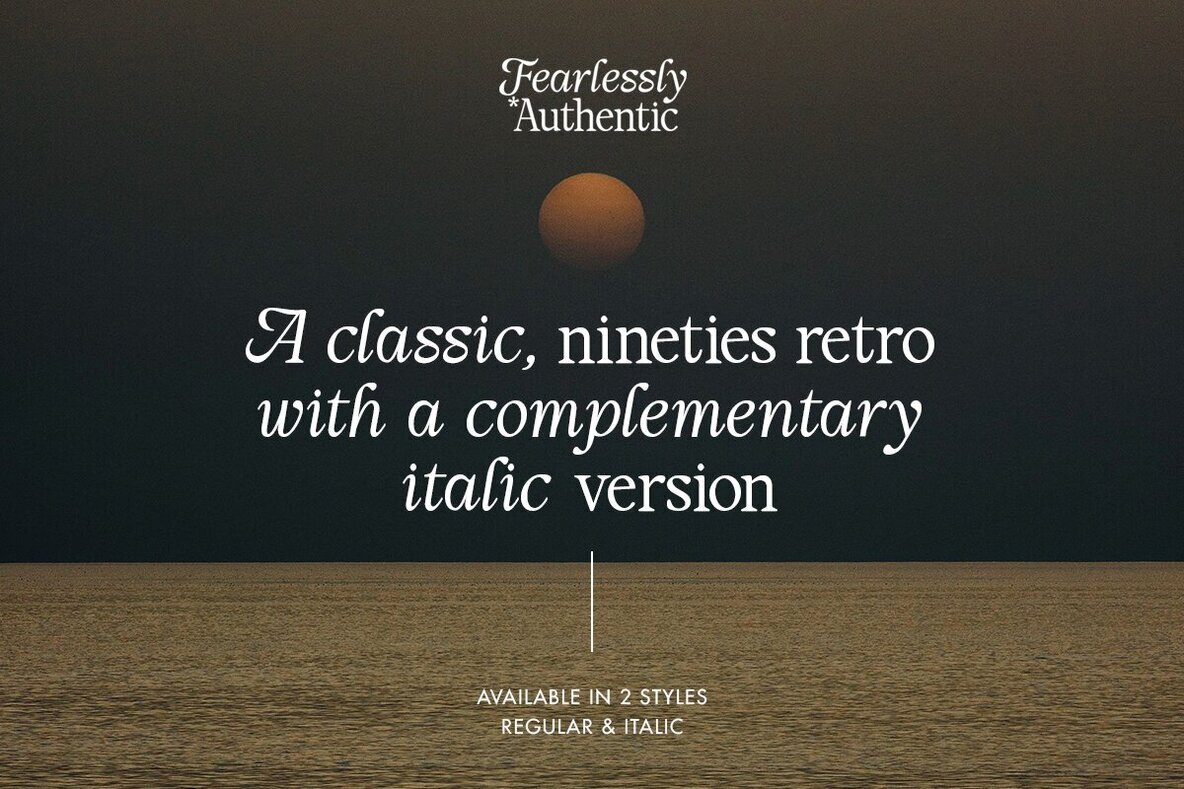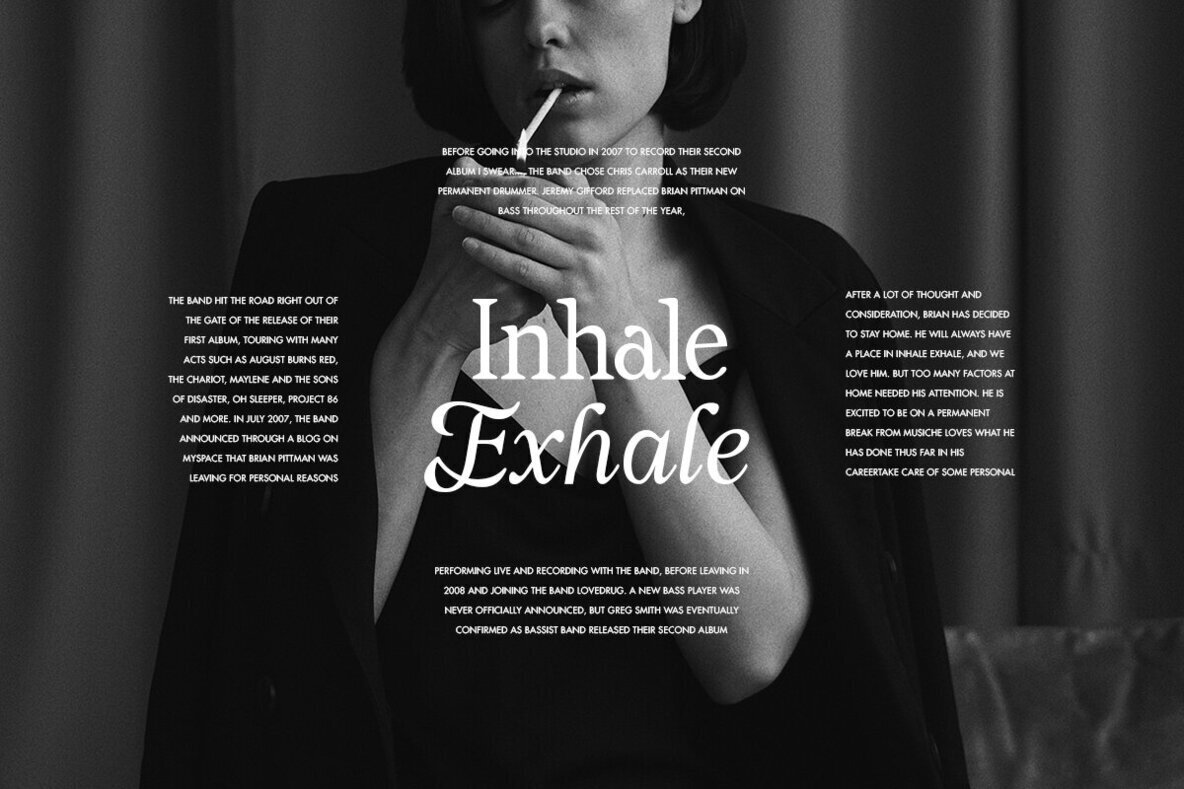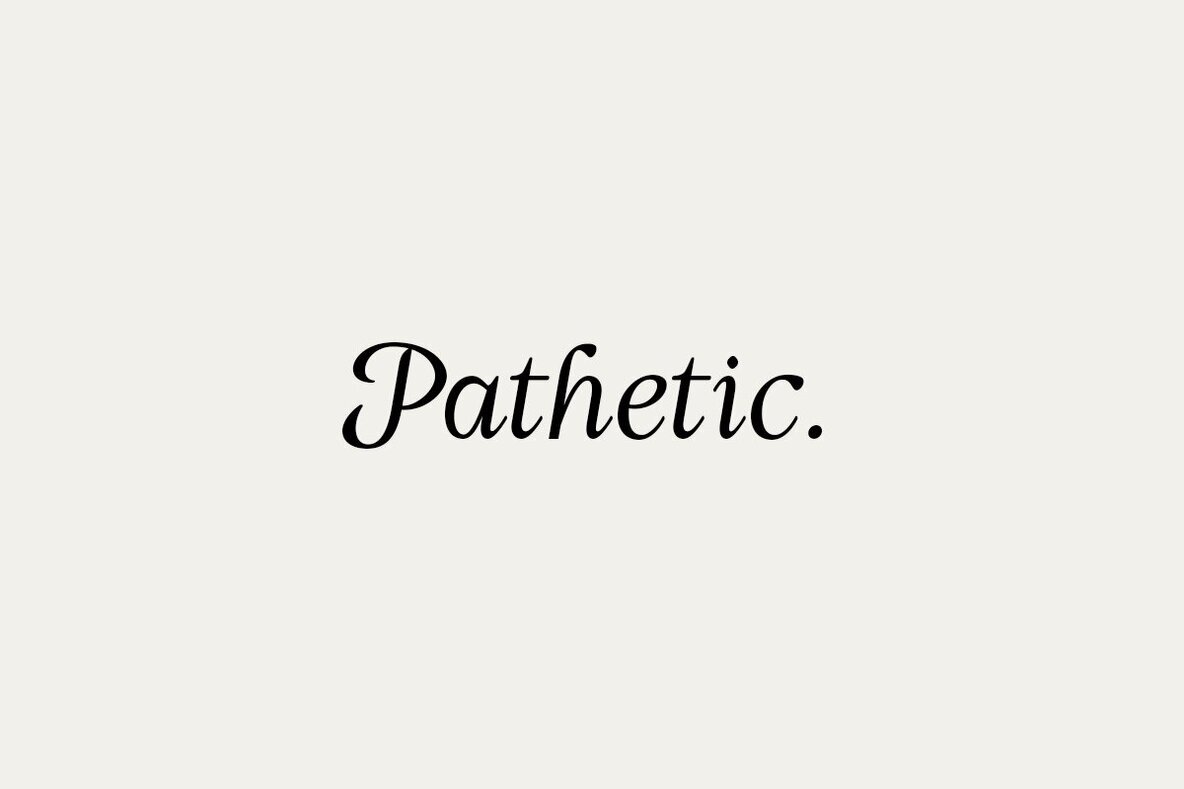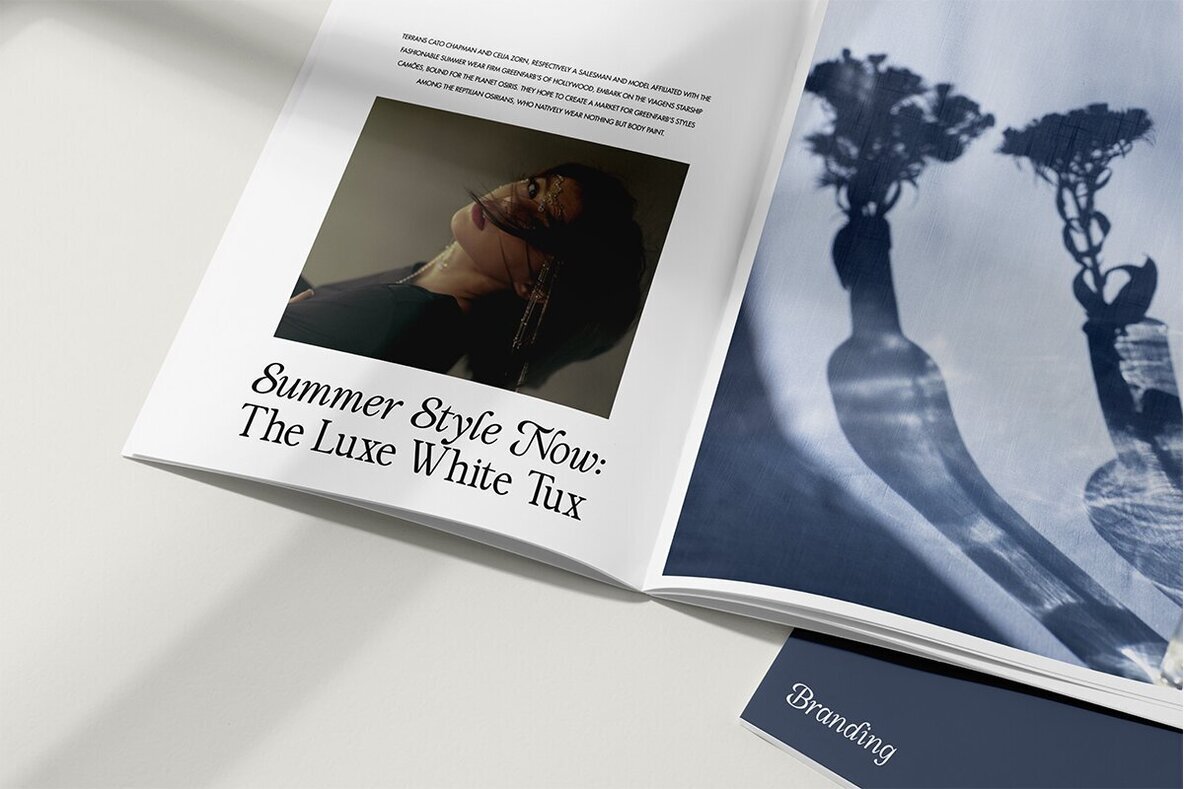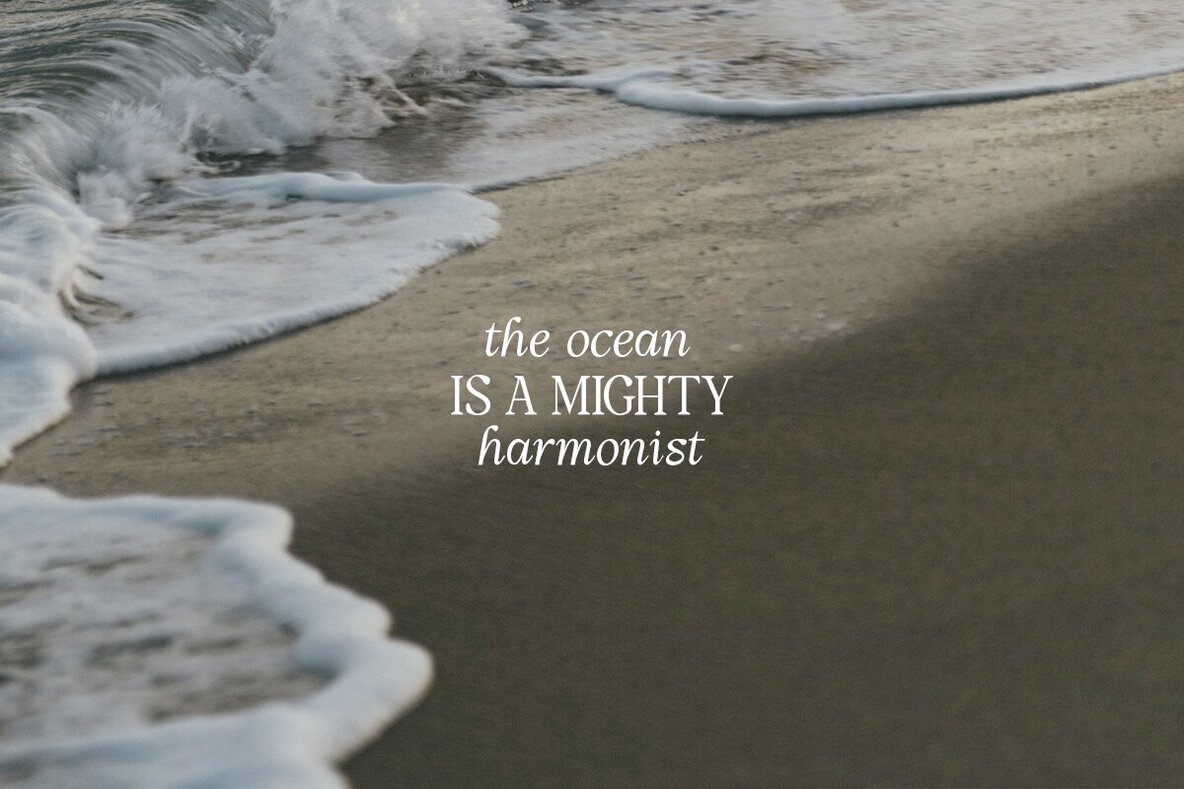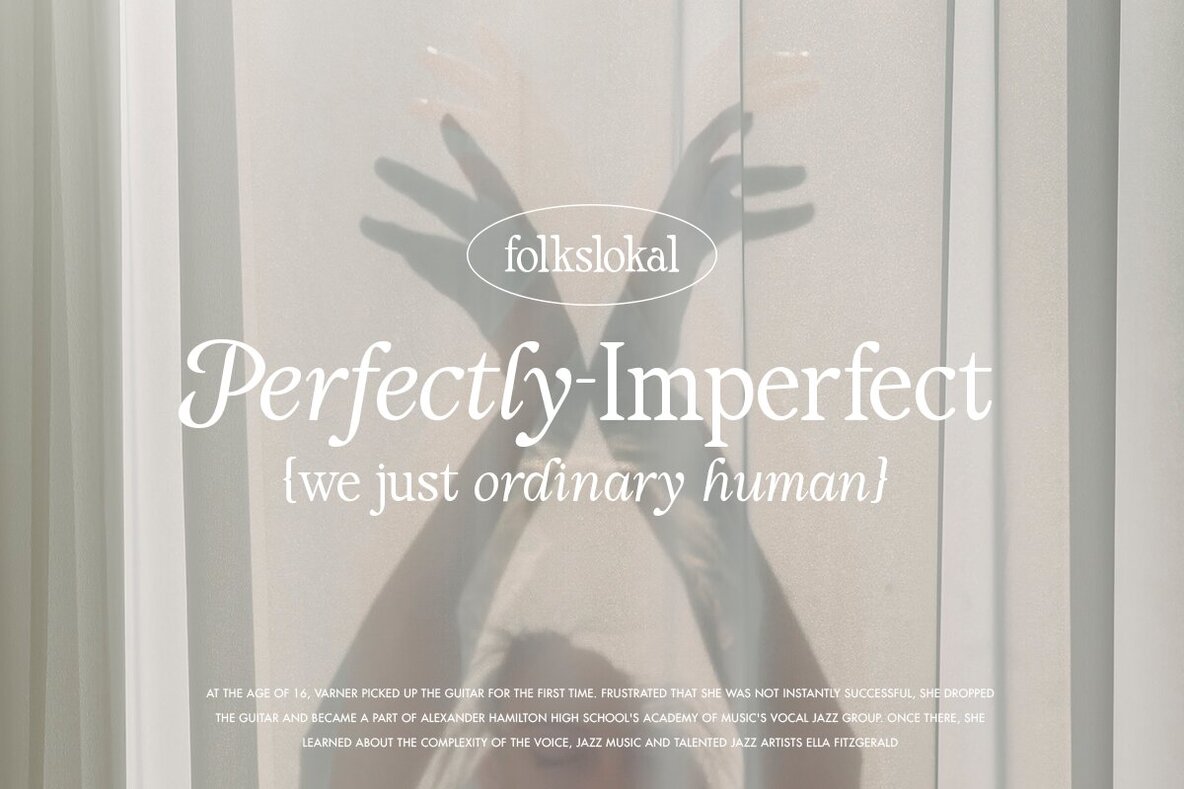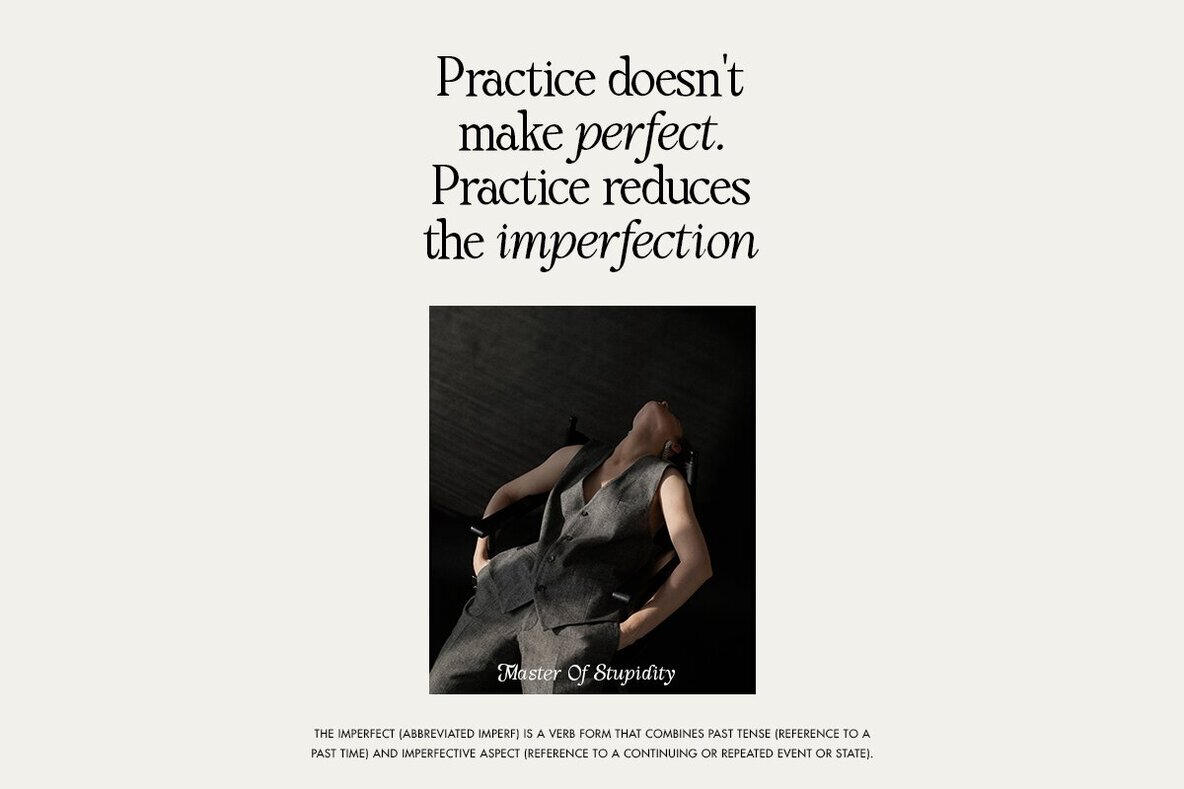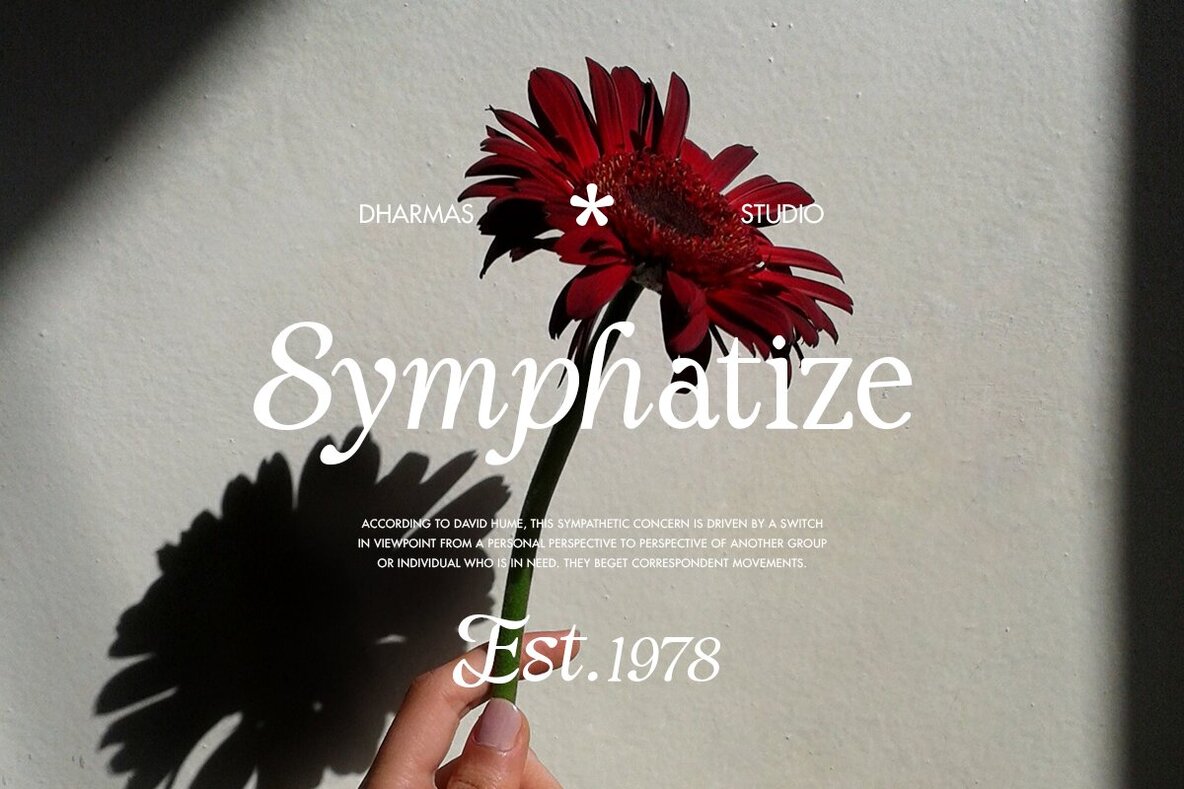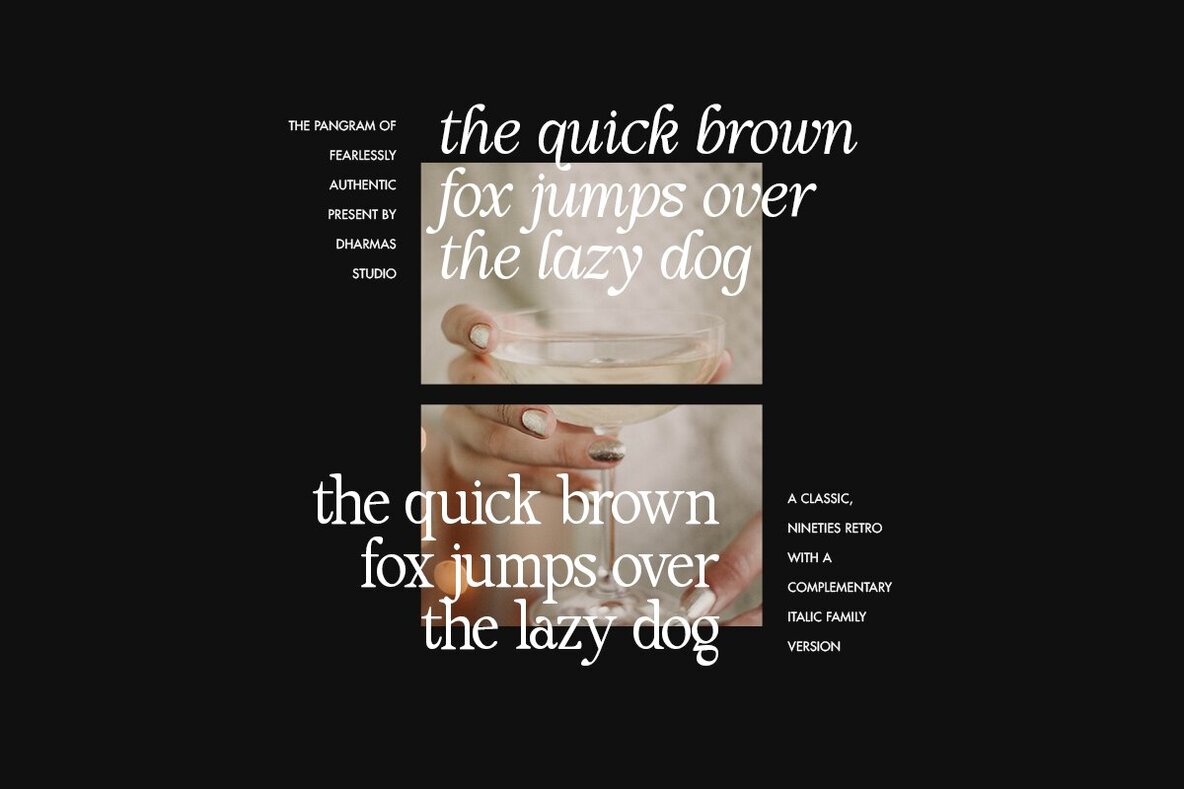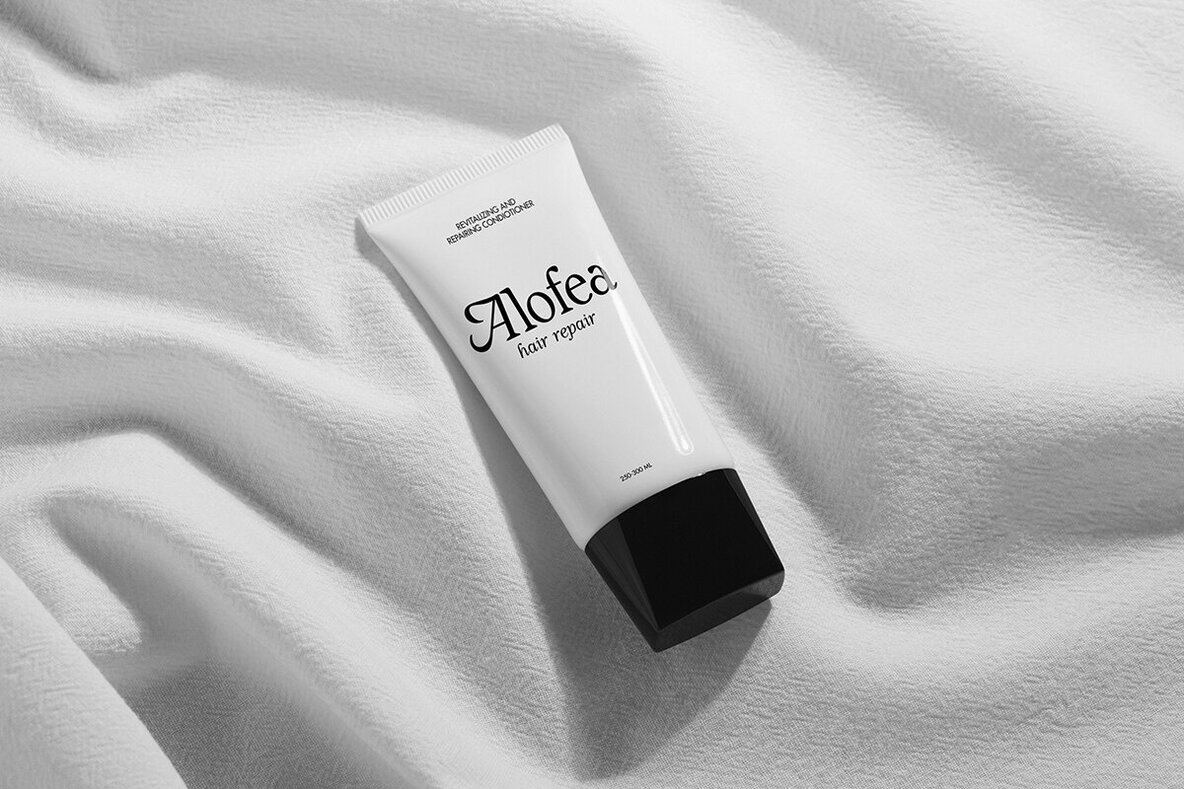
Fearlessly Authentic Font
Say hello to the new classic nineties retro font, Fearlessly Authentic!
The trend is to make thin serif fonts that made the 80s and 90s style, so we wanted to make them too but with a different touch. Make it slightly rounded for a retro look and make your design look great!
Fearlessly Authentic - A classic nineties retro with a complementary italic version. In the italic family, we make it different from the regular and make a shape with a unique uppercase so it looks more classic, retro but a little modern
We've also been loving combining the regular and italic, especially for logos (see the "Symphatize logo, image #3)